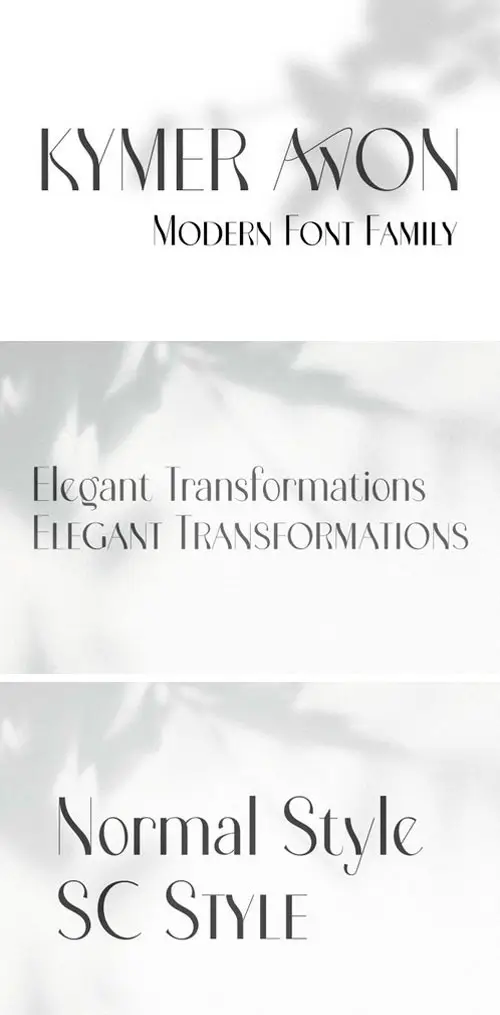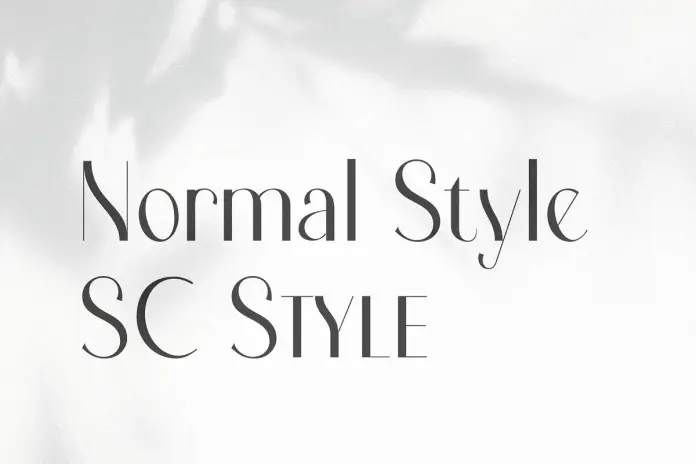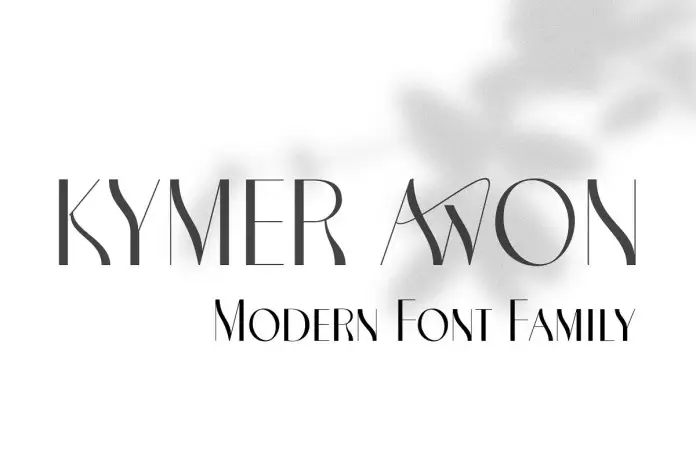
The Kymer Awon Sans Serif Font is a modern and versatile typeface designed to elevate your design projects. With its clean lines and contemporary aesthetic, this font is perfect for a variety of applications including branding, logos, web design, and print materials.
- Stylish sans serif design
- Multiple weights for flexibility
- Supports multilingual characters
- Easy to read at various sizes
- Weights: Regular, Bold, Italic
Utilize this font for your web projects, marketing materials, and any design requiring a modern touch. Its versatility makes it a great choice for both digital and print applications.